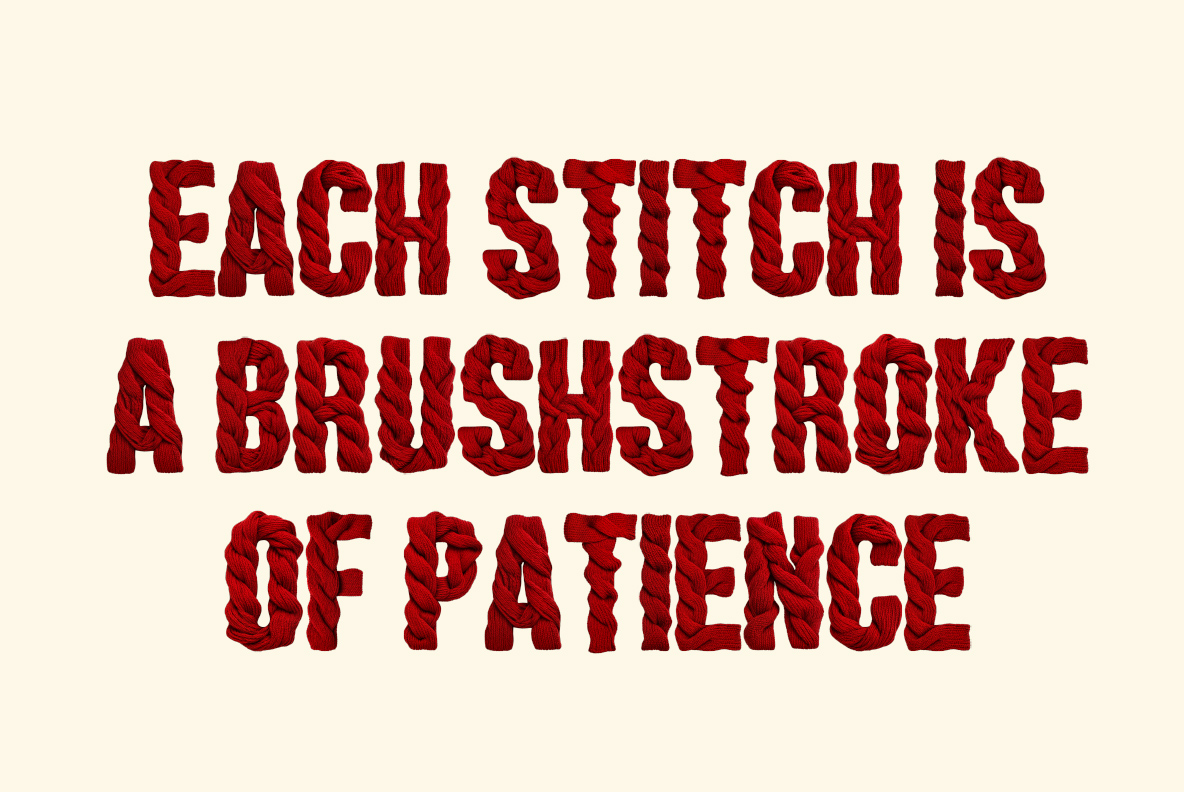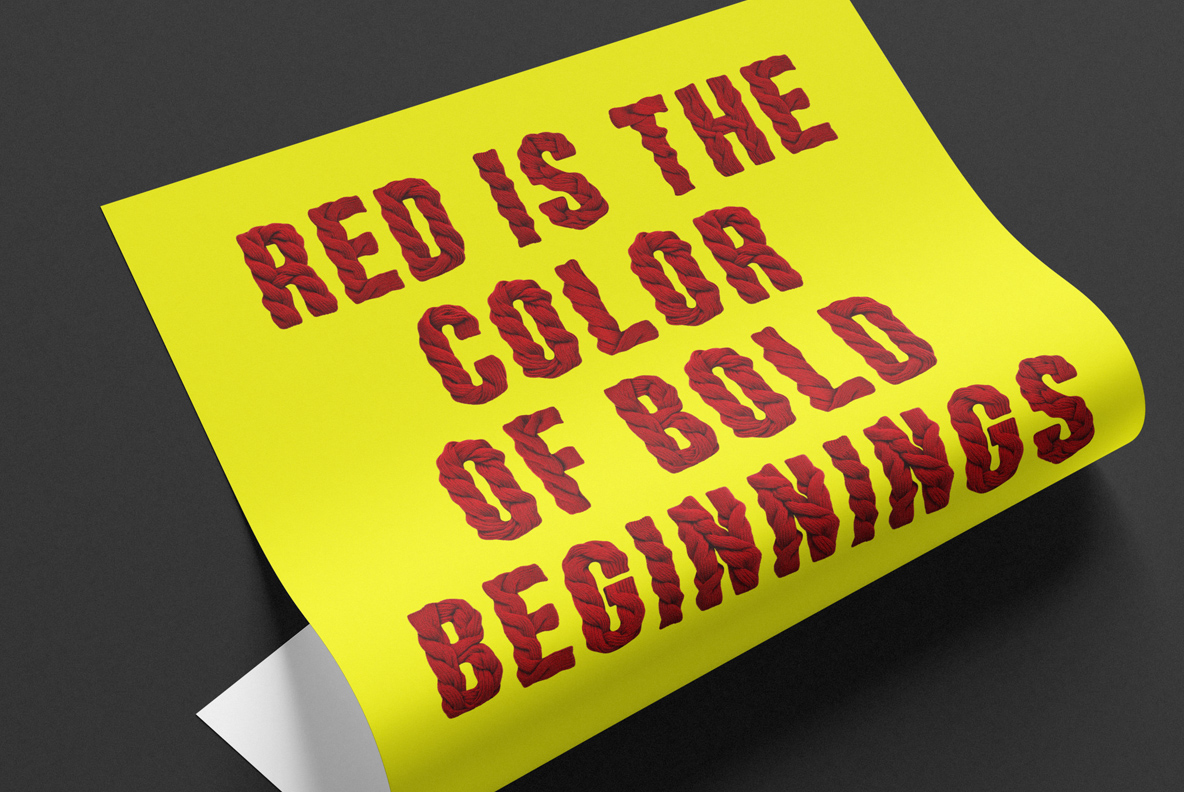
Crimson Knit Font. Knit Happens and It Just Did in Your Design
Crimson Knit Font weaves coziness into every letter. Bold red stitches twist into letterforms, creating a warm, handmade vibe perfect for winter designs, holiday themes, or cozy branding. This font exudes creativity, softness, and charm—ideal for any project where you want to say, “Let’s get snug and stylish.”
Thread by Thread Letter by Letter Knit Your Story
Crimson Knit Font is not just a font. It’s a cozy, chunky sweater for your words—a font that feels like a warm hug from grandma, a sip of hot cocoa, and the satisfying crunch of autumn leaves underfoot, all wrapped up in vibrant red yarn. Each letter is meticulously crafted from twisted, knitted threads, forming bold shapes that feel alive, textured, and utterly irresistible. It’s not a typeface; it’s a typefeast for the eyes—where every curve and loop tells a story of handmade charm, patience, and the simple joy of creating something with your hands.
Let’s face it: in a world of sterile, soulless fonts, Crimson Knit stands out like a scarlet scarf in a sea of grey suits. It’s the font equivalent of that loud, cheerful aunt who always brings the best presents and the warmest hugs. You can’t ignore it—and honestly, why would you want to?
Twisted, Braided, Knitted Red Woolen Font
Your Words in a Sweater Who Knew You Needed That
Perfect for holiday greetings, branding for cozy products, craft fair posters, or anything that calls for a touch of whimsy and warmth, Crimson Knit is a visual reminder that fonts can have character. Literally. Each letter in Crimson Knit is bold, braided, and bursting with texture, like the chunky knit on your favorite sweater. The shadows between the folds give it depth, making the text feel almost touchable. You’ll want to reach out and squish it, just to see if it’s as soft as it looks. (Spoiler alert: It is almost that soft.)
Crimson Knit Open-Type Font description
Twisted, Braided, Knitted Red Woolen Font
Typography Wrapped in Yarn This is Not Your Average Font
But Crimson Knit isn’t just for show—it’s versatile too. It’s a font that knows how to have fun while still getting the job done. You can use it for bold headlines, playful logos, or eye-catching social media graphics. It demands attention without being overbearing—kind of like that one friend who always has the best stories but also knows when to let others shine.
And let’s talk about the color. Oh, that crimson! It’s not just red—it’s rich, deep, and deliciously bold. It’s the color of love, passion, and a really good glass of wine. It makes every word look a little bit more exciting, a little bit more festive, and a whole lot more fun. This is not a font for the faint of heart. It’s a font for bold statements, heartfelt messages, and designs that want to wrap the viewer in a warm, woolly embrace.
Imagine using Crimson Knit on a holiday card: “Happy Holidays” has never looked so inviting. Or on packaging for a cozy blanket brand—it practically whispers “snuggle up!” when you see it. Even your “to-do” list looks less intimidating when it’s spelled out in yarn.
Twisted, Braided, Knitted Red Woolen Font
The Font That Whispers Softly But Delivers Boldly
In a nutshell (or should we say in a ball of yarn?), Crimson Knit Font is the perfect blend of creativity, warmth, and humor. It’s a font that says, “Hey, let’s slow down a bit, enjoy the little things, and maybe knit a scarf while we’re at it.”
So, whether you’re a designer looking for that perfect statement font, a brand seeking a cozy vibe, or just someone who loves a font with a little more soul, Crimson Knit is your go-to. Because in a world that moves fast and feels cold, a font that wraps your words in the softness of hand-knit yarn is more than just a typeface. It’s a mood. It’s a lifestyle. It’s Crimson Knit.
Go ahead, add a little warmth to your design—and let your words get cozy.